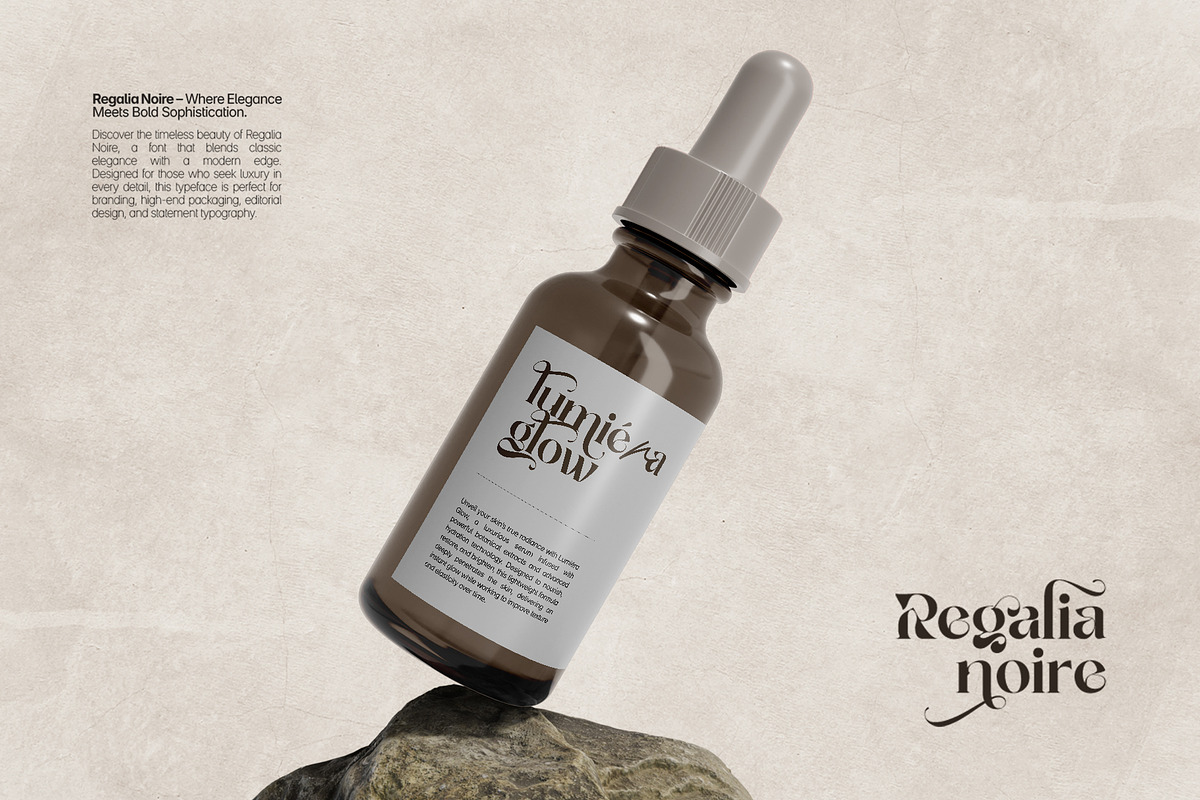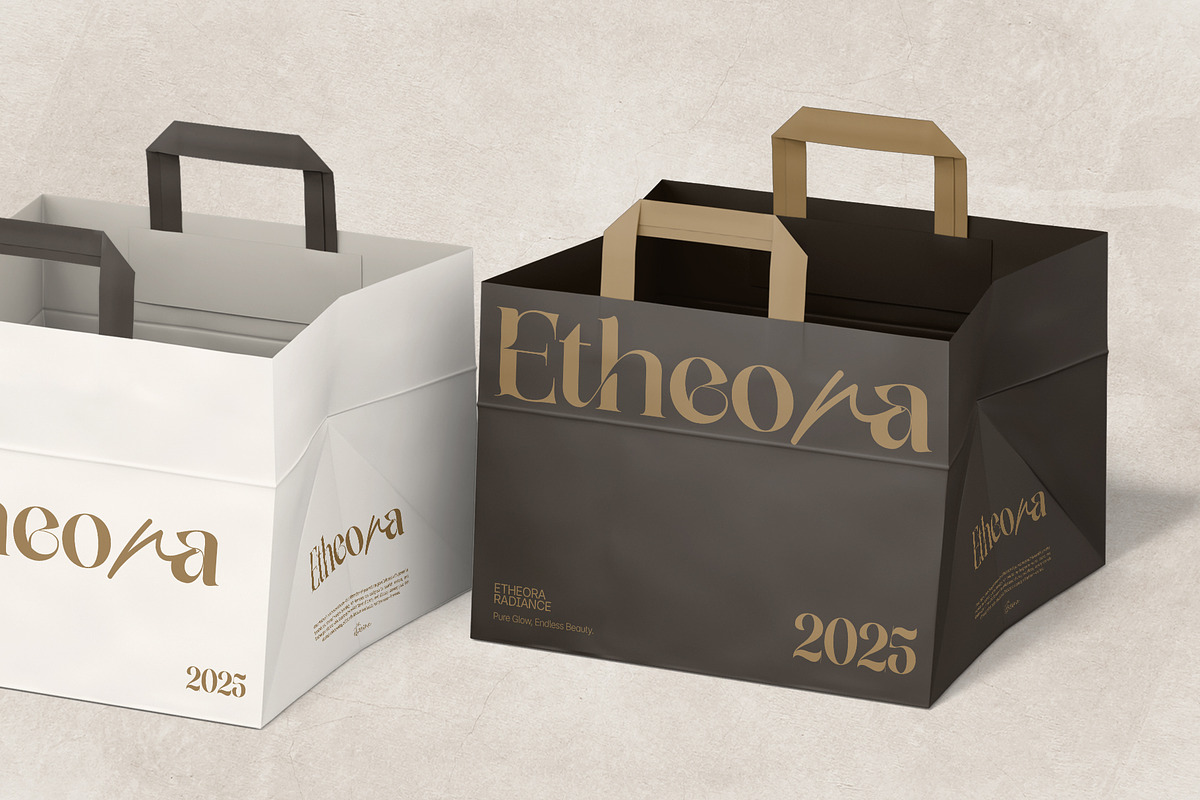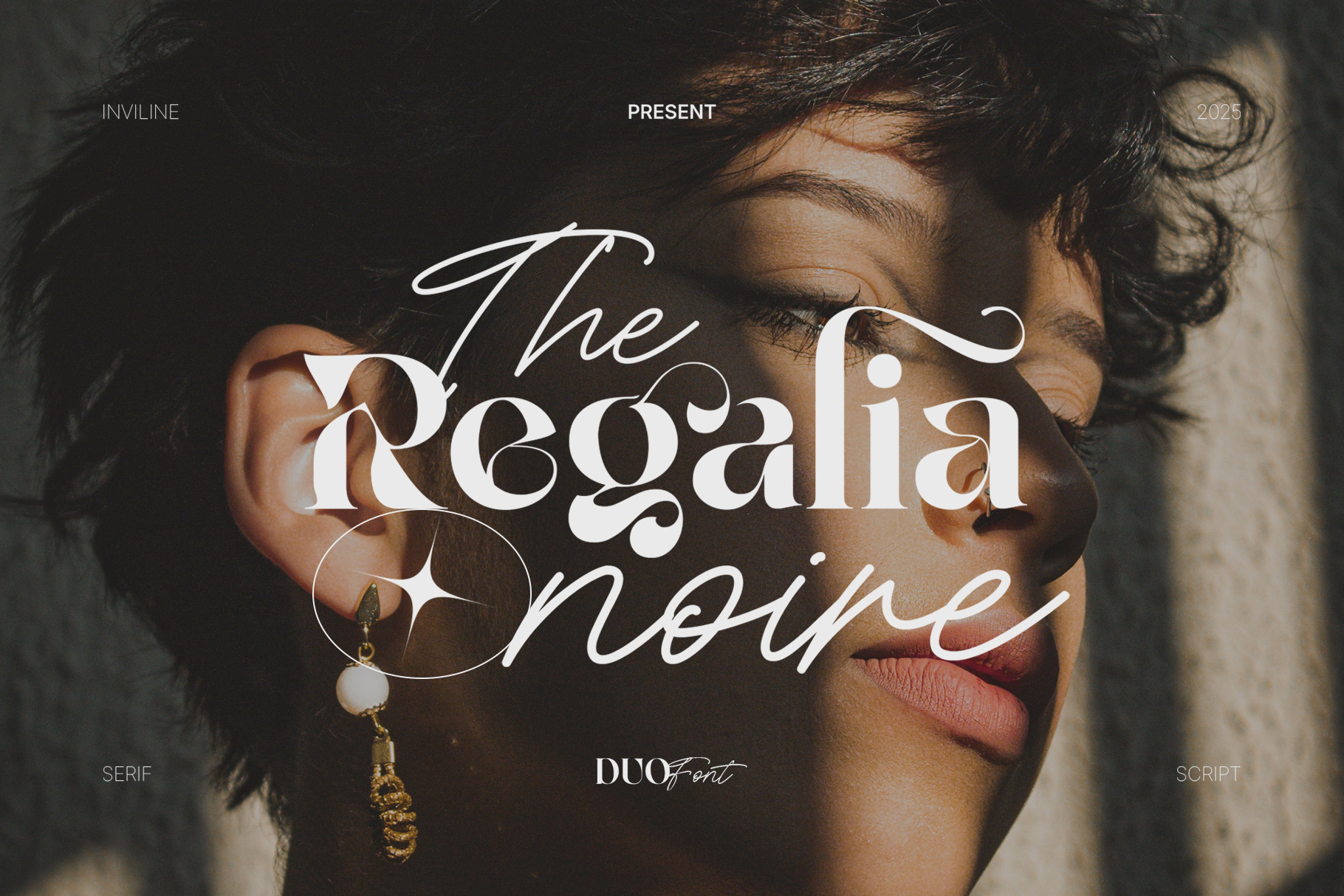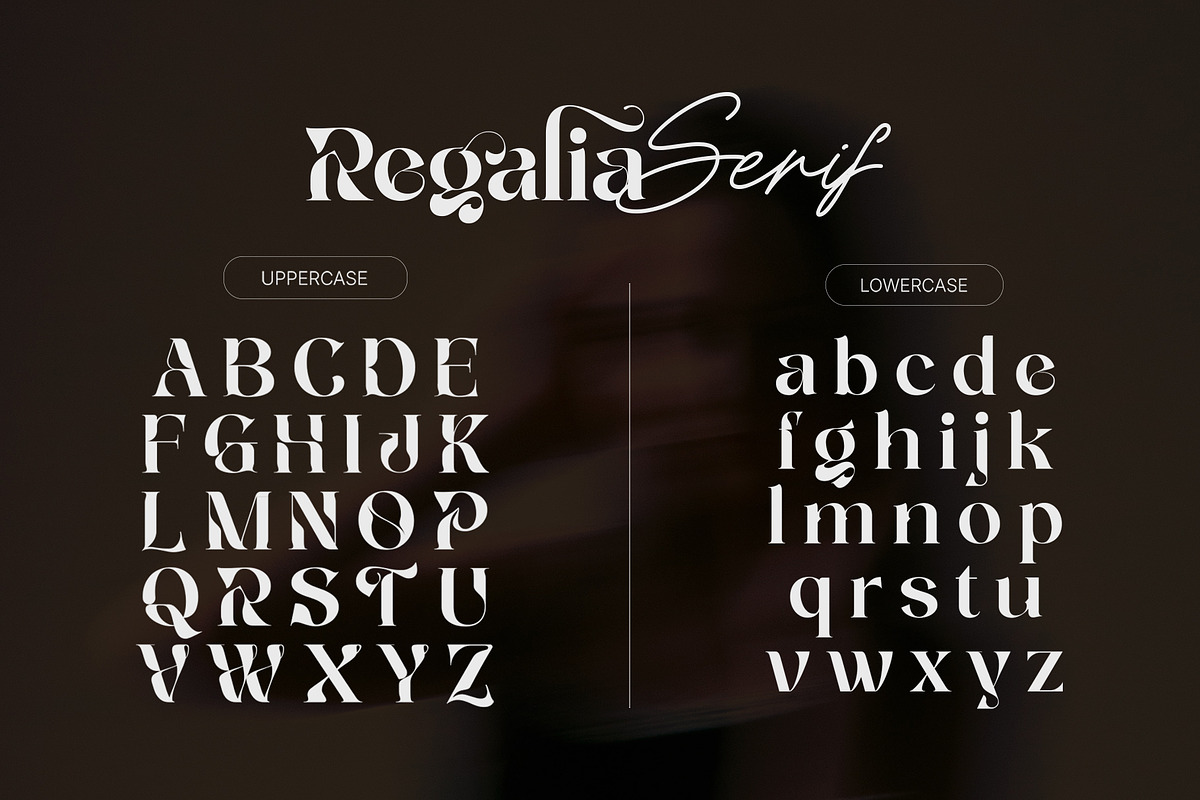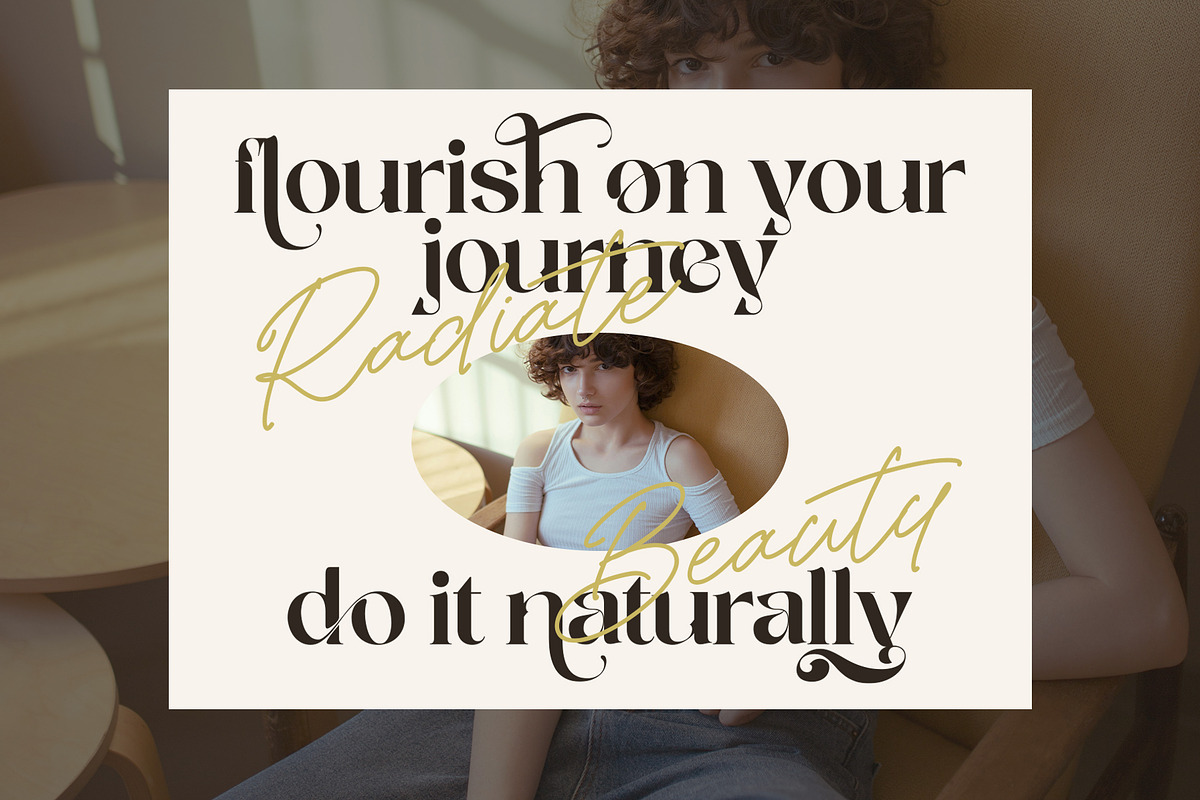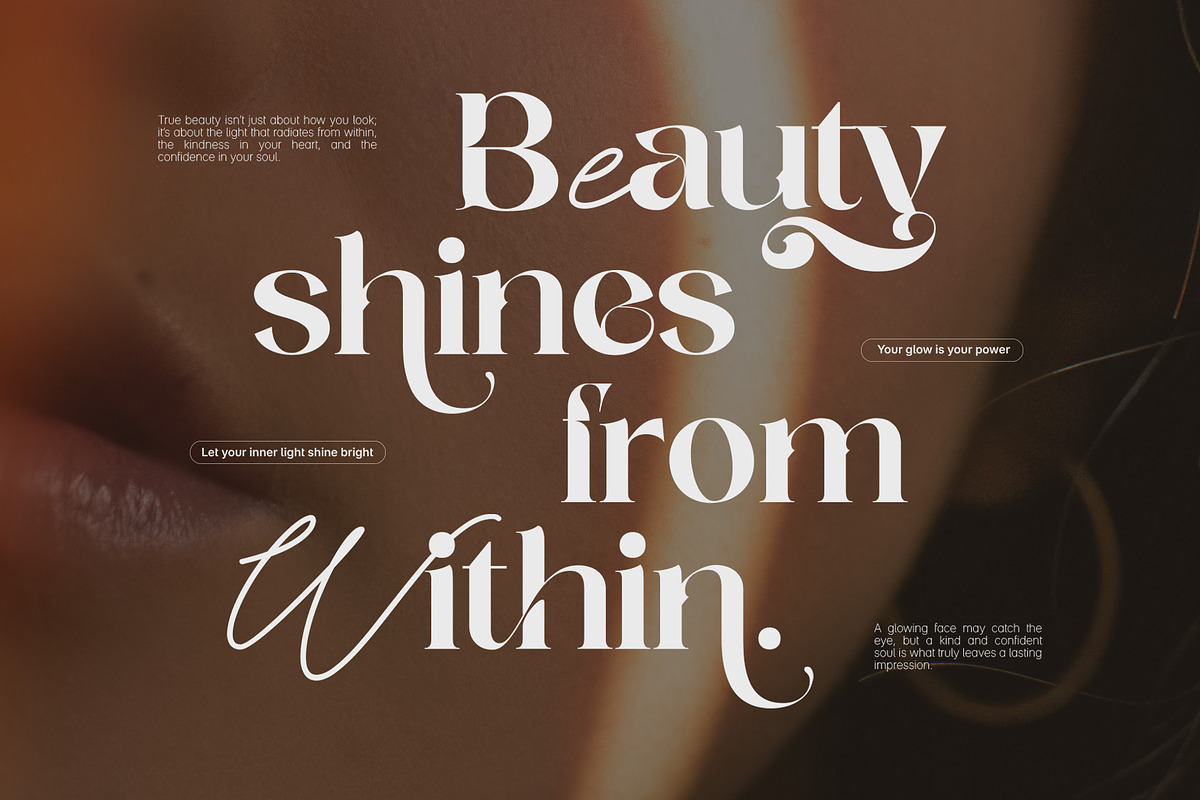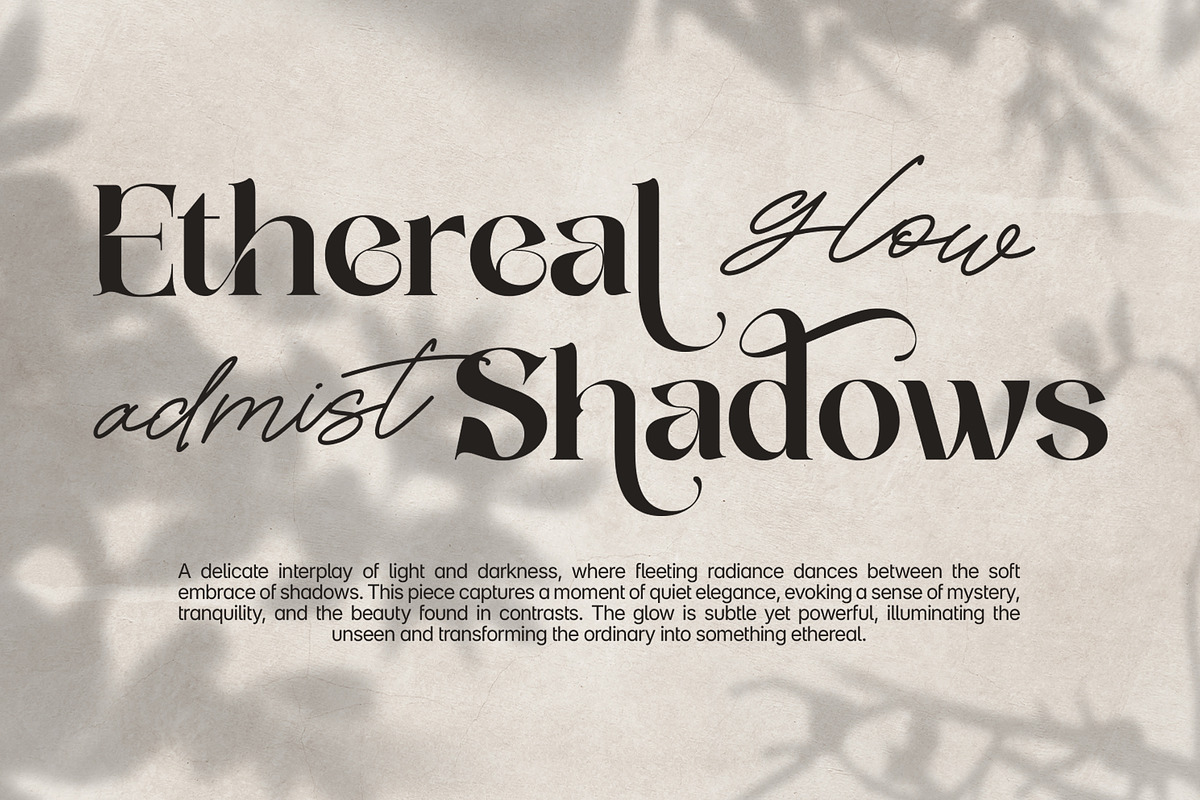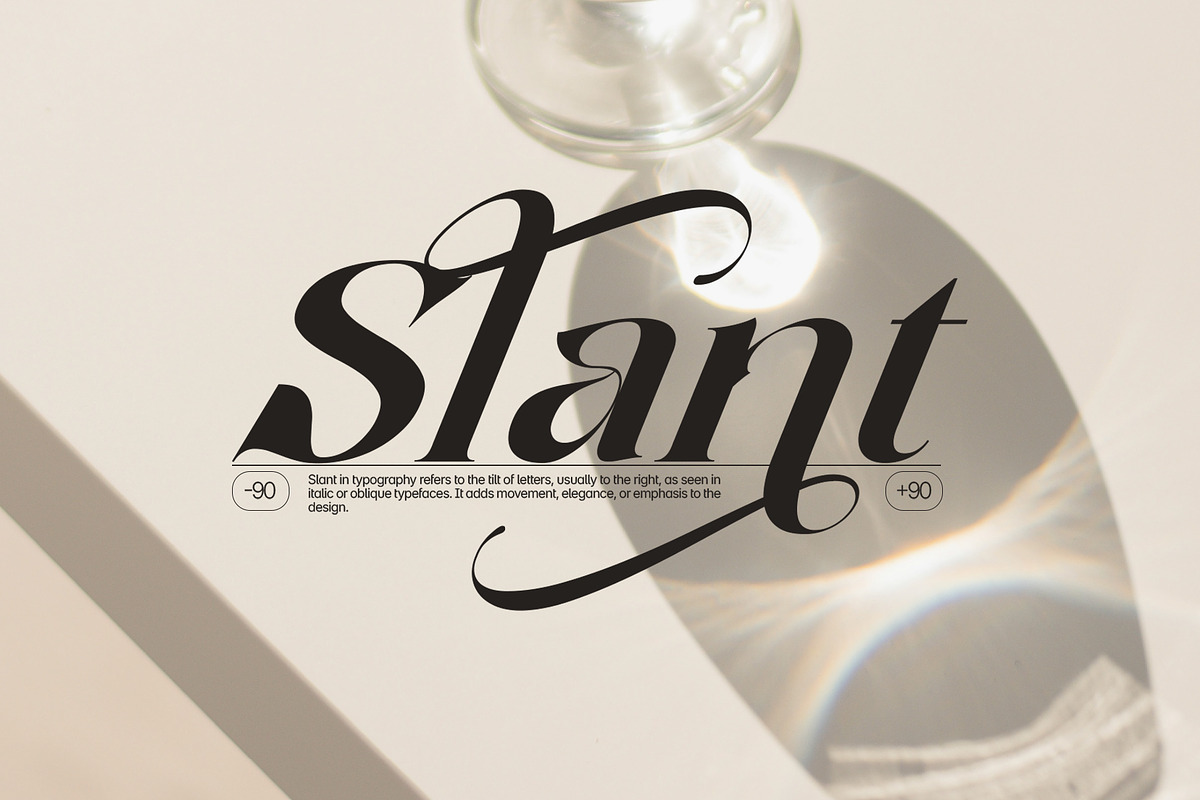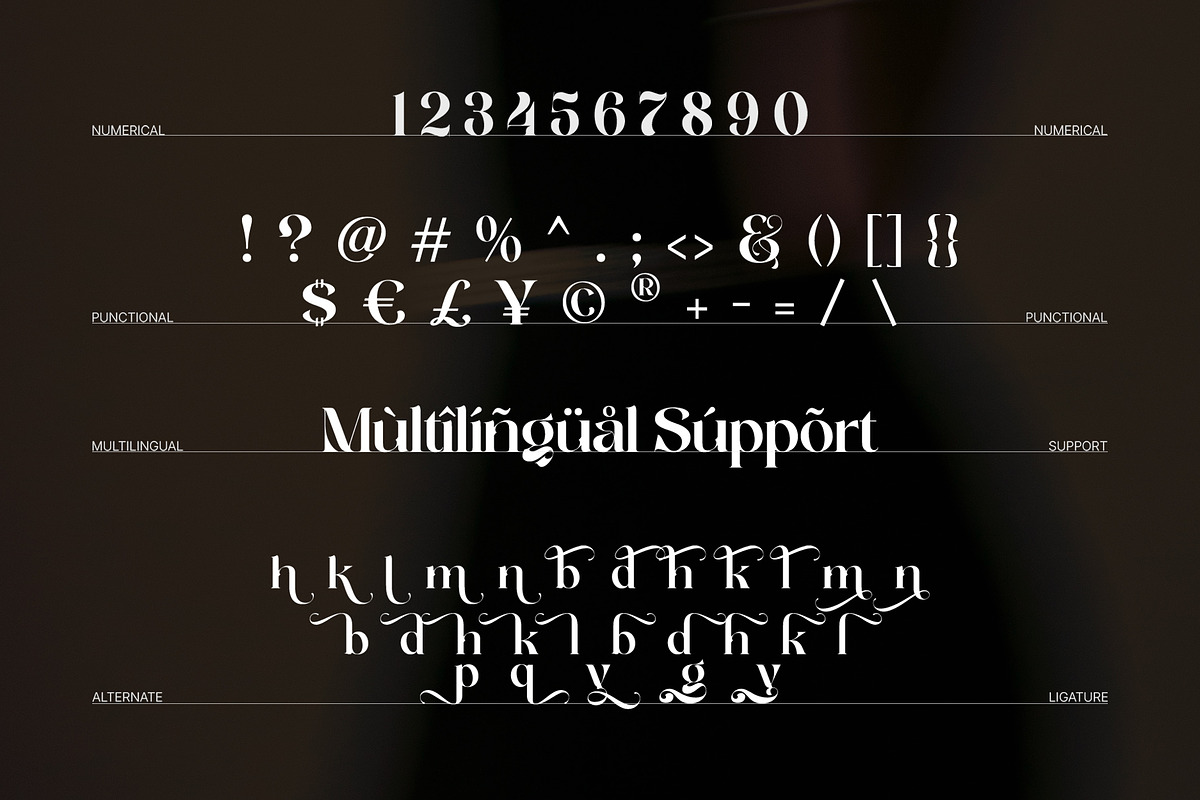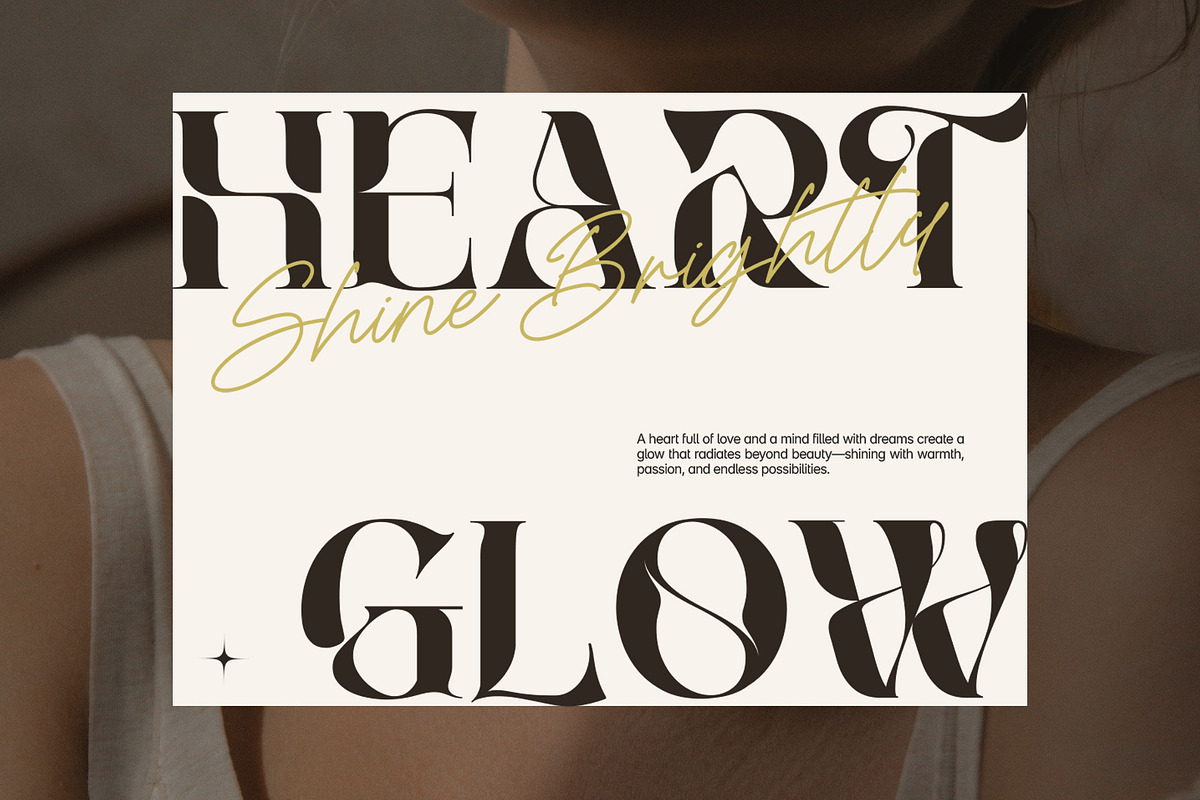
Regalia Noire - Duo Font
Regalia Noire is an elegant duo font pairing a refined display serif with a graceful handwritten script. Designed to create sophisticated typographic contrast, the combination blends structured editorial letterforms with soft, expressive handwriting.
Inspired by luxury fashion, beauty editorials, romantic stationery, and premium branding, Regalia Noire is ideal for projects that need a polished, feminine, and timeless visual identity.
Regalia Noire combines two complementary type styles in one coordinated font system. The Serif features high contrast, sculptural curves, and distinctive decorative details, while the Script introduces fluid handwriting and delicate movement.
Use the serif for prominent titles, logos, editorial headlines, and product names, then combine it with the script for signatures, accent words, quotes, and elegant secondary typography.
The duo works especially well with fashion photography, neutral palettes, luxury packaging, beauty campaigns, wedding stationery, and contemporary editorial layouts.
Regalia Noire Serif Font
Regalia Noire Script Font
Uppercase characters A–Z
Lowercase characters a–z
Numerals 0–9
Standard symbols and punctuation
Stylistic alternate characters
Ligature combinations
Multilingual accented characters
Coordinated serif and script duo font
Elegant luxury editorial aesthetic
High-contrast serif construction
Flowing handwritten script companion
Decorative serif details
Refined curves and stylish terminals
Complete numerals
Standard symbols and punctuation
Stylistic alternates
Ligature support
Strong contrast between structured serif and expressive script
Ideal for sophisticated typographic hierarchy
Works beautifully for fashion, beauty, wedding, and luxury projects
Stylistic Alternates: alternate forms are visibly part of the serif character system, but the exact supported letters are not fully identifiable from the supplied preview
18 Ligature Pairs: st, br, cr, ct, fr, ist, op, or, ox, th, Tr, tt, wn, ff, fi, fl, ffi, ft — include these only if every combination is available and tested in the final font files
Multilingual Support: Western European characters with diacritics (À, Á, Â, Ç, É, Ñ, Ø, Ü, etc.)
Ideal For / Use Cases
Luxury branding
Fashion identities
Beauty and cosmetic branding
Perfume packaging
Jewelry branding
Boutique logos
Wedding invitations
Save-the-date cards
Bridal stationery
Editorial headlines
Magazine covers
Fashion lookbooks
Product packaging
Premium labels
Logo and wordmark design
Personal branding
Photography portfolios
Website hero titles
Greeting cards
Quote layouts
Restaurant menus
Event invitations
Book covers
Sophisticated visual identities
Use the Serif for main headlines, logos, titles, and product names. Use the Script for accent words, signatures, quotes, or secondary decorative text.
Pair the duo with generous negative space and restrained color palettes to emphasize its premium editorial character.
Best used at medium and large sizes for display typography
Decorative characters may require manual spacing adjustments